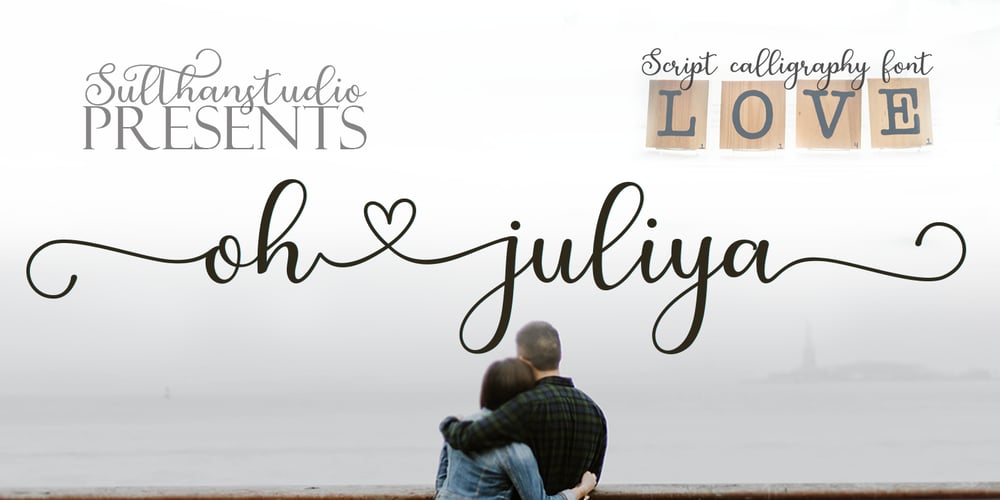
Oh Juliya Font Family was designed by Nasrullah and published by Sulthan Studio. Oh Juliya contains 1 styles and family package options. Oh Juliya is a new, fresh, funny, interesting, cute calligraphy font with hearts, and that can be connected. Great for greeting cards, branding materials, business cards, quotes, posters, and more! Oh Juliya includes many alternative characters. Coded with Unicode PUA, which allows full access to all additional characters without having special design software. Mac users can use Font Book. Windows users can use the Character Map to view and copy one of the additional characters to paste into your favorite text editor. For people who have OpenType-capable software: Alternatives can be accessed by turning on the “Alternative Style” and “Ligature” buttons on the Photoshop Character panel, or through any software with the glyph panel, e.g. Adobe Illustrator, Photoshop CC, Inkscape.